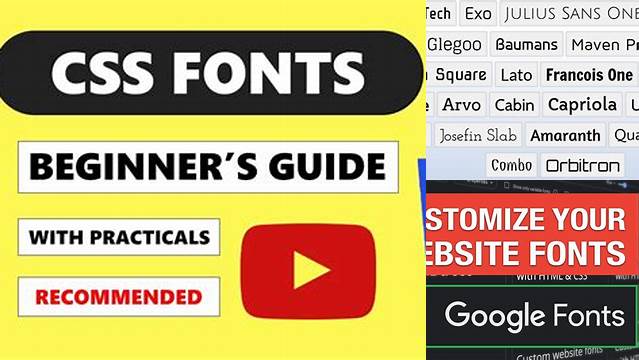
Google Fonts: Easy Guide For HTML & CSS Web Design
Hey guys! Ever wondered how to make your website look super polished and professional without breaking the bank? One of the easiest and most effective ways is by using Google Fonts. They're free, they're awesome, and they're a game-changer for web design. In this guide, we're going to dive deep into how to use Google Fonts in your HTML and CSS, covering everything from the basics to some more advanced techniques. Let’s get started!
What are Google Fonts?
Before we jump into the how-to, let's quickly cover what Google Fonts actually are. Google Fonts is a library of over a thousand free, open-source font families that you can use on your website. Think of it as a giant candy store for typography! These fonts are professionally designed and cover a wide range of styles, from elegant serifs to modern sans-serifs, playful display fonts, and everything in between. This means you can find the perfect font to match your website's brand and aesthetic, making it look amazing. Google Fonts are hosted on Google's servers, which means they're delivered quickly and efficiently to your visitors, ensuring a smooth browsing experience. Plus, because they're free, you don't have to worry about licensing fees or complex subscription models. It's a win-win situation!
Why Use Google Fonts?
So, why should you bother using Google Fonts? Well, there are tons of reasons! First and foremost, they offer an incredible variety. With over a thousand fonts to choose from, you're sure to find something that suits your project. This vast selection allows you to be creative and express your brand's personality through typography. Imagine being able to choose from a font that feels sophisticated and professional for a corporate website or a playful, bubbly font for a children's blog. Google Fonts empowers you to do just that. Secondly, they're completely free! This is a huge advantage, especially if you're working on a budget. You get access to high-quality fonts without having to spend a dime. This can be a significant cost-saving for startups, small businesses, or even personal projects. Instead of paying hefty licensing fees for premium fonts, you can use Google Fonts and allocate your budget to other important areas of your website or business. Thirdly, they're easy to use. Adding Google Fonts to your website is a simple process that requires just a few lines of code, which we'll cover in detail in the following sections. You don't need to be a coding wizard to get beautiful typography on your site. This simplicity makes Google Fonts accessible to everyone, regardless of their technical expertise. Finally, they're optimized for the web. Google Fonts are served from Google's global network of servers, ensuring fast loading times and reliable delivery to your visitors. This is crucial for providing a good user experience. Slow-loading fonts can frustrate users and even negatively impact your website's SEO. Google Fonts take care of this issue, ensuring your site looks great and performs well.